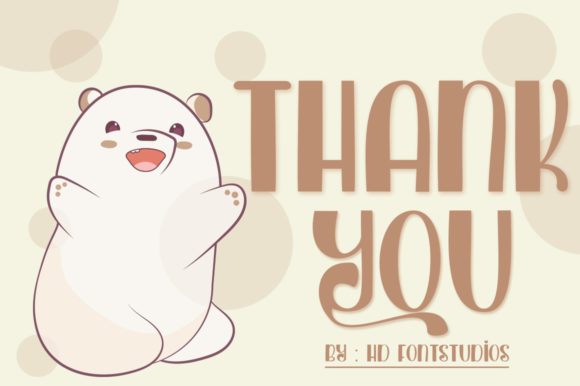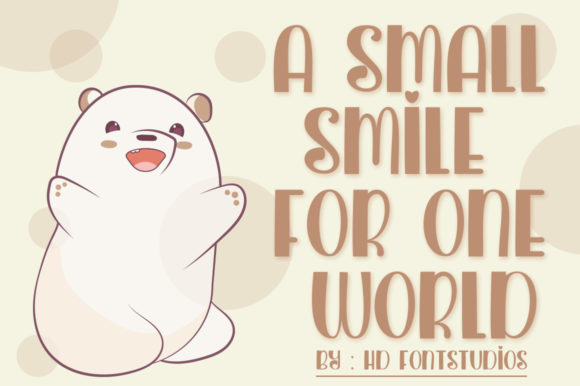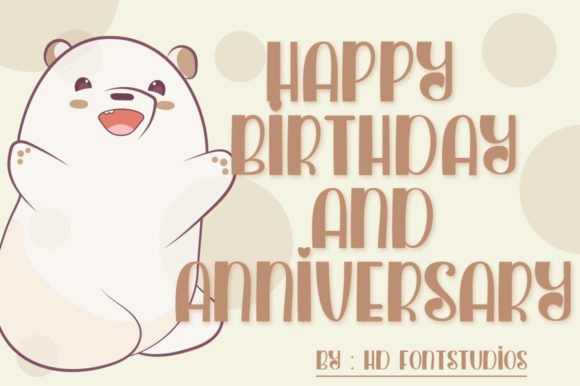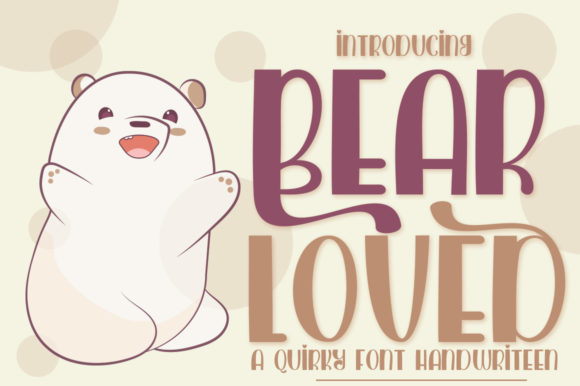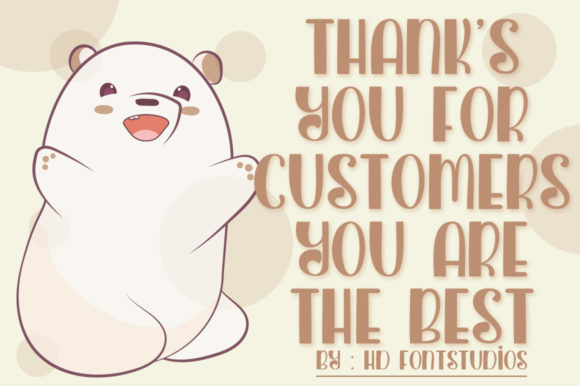
The Magic of Hand-Lettered Script: Introducing the Bear Loved Font
As a designer, have you ever found yourself stuck in a creative rut, searching for the perfect font to bring your vision to life? You’ve poured over pages of sans-serifs and serifs, only to feel uninspired. But then, you stumble upon a font that speaks to you – a font that whispers sweet nothings of whimsy and wonder. For many designers, that font is the Bear Loved Font.
This charming, hand-lettered script font is more than just a pretty face – it’s a tool that can elevate your designs and make them truly special. With its playful rounded characters and swashes, the Bear Loved Font is perfect for creating stunning calligraphic art that will leave a lasting impression. Whether you’re designing wedding invitations, social media posts, or greeting cards, this font is sure to add a touch of magic to your work.
Bear Loved Font Key Features
- Font Family: Bear Loved Font is a custom-designed font family, ideal for various design projects.
- Size and Resolution: The font comes in a standard 1,024 x 1,024 pixels resolution, suitable for high-resolution printing and digital displays.
- Unique Characteristics: Bear Loved Font features a playful, handwritten style with distinct letterforms, perfect for adding a personal touch to designs.
Bear Loved Font Review
Overall, I was quite excited to dive into the Bear Loved Font, but my experience was a mixed bag. Let’s start with what works well ✨.
- It has a playful and charming aesthetic that’s perfect for children’s content, greeting cards, or any other project that needs a cute touch.
- The font is highly customizable, with a wide range of sizes and styles available.
- The font is also very legible, even at smaller sizes, which is essential for content that needs to be easily readable.
Now, let’s talk about the limitations ⚠️.
- The font might be a bit too childish for more mature audiences, which could be a limitation for certain projects.
- The font lacks a bold weight, which could make it harder to use in certain situations where a bold font is necessary.
- The font is not ideal for use in body text, as it’s more suited for headings and titles.
Overall, I’d say that the Bear Loved Font is a great choice for projects that need a cute and playful touch. However, it’s essential to keep in mind its limitations and use it judiciously. With some careful planning and design decisions, this font can be a great addition to your design toolkit.
The Bear Loved Font is perfect for creating playful, whimsical designs. Use it for:
- Children’s book covers and illustrations.
- Party invitations and decorations.
- Food and drink branding.
Remember to experiment with different font sizes and colors to get the most out of the Bear Loved Font.
Carolyna Pro is a sophisticated, modern script font that’s perfect for creating a sense of elegance and refinement. It’s ideal for use in high-end branding, editorial design, and advertising materials that require a touch of luxury. Compared to Bear Loved Font, Carolyna Pro has a more refined and polished look, making it suitable for more formal designs.
Q: Does Bear Loved Font support Unicode characters?
Yes, Bear Loved Font supports a wide range of Unicode characters, including Latin, Cyrillic, Greek, and many other languages. The font also includes support for emoji and special characters, making it suitable for use in a variety of applications, from body text to display typography.